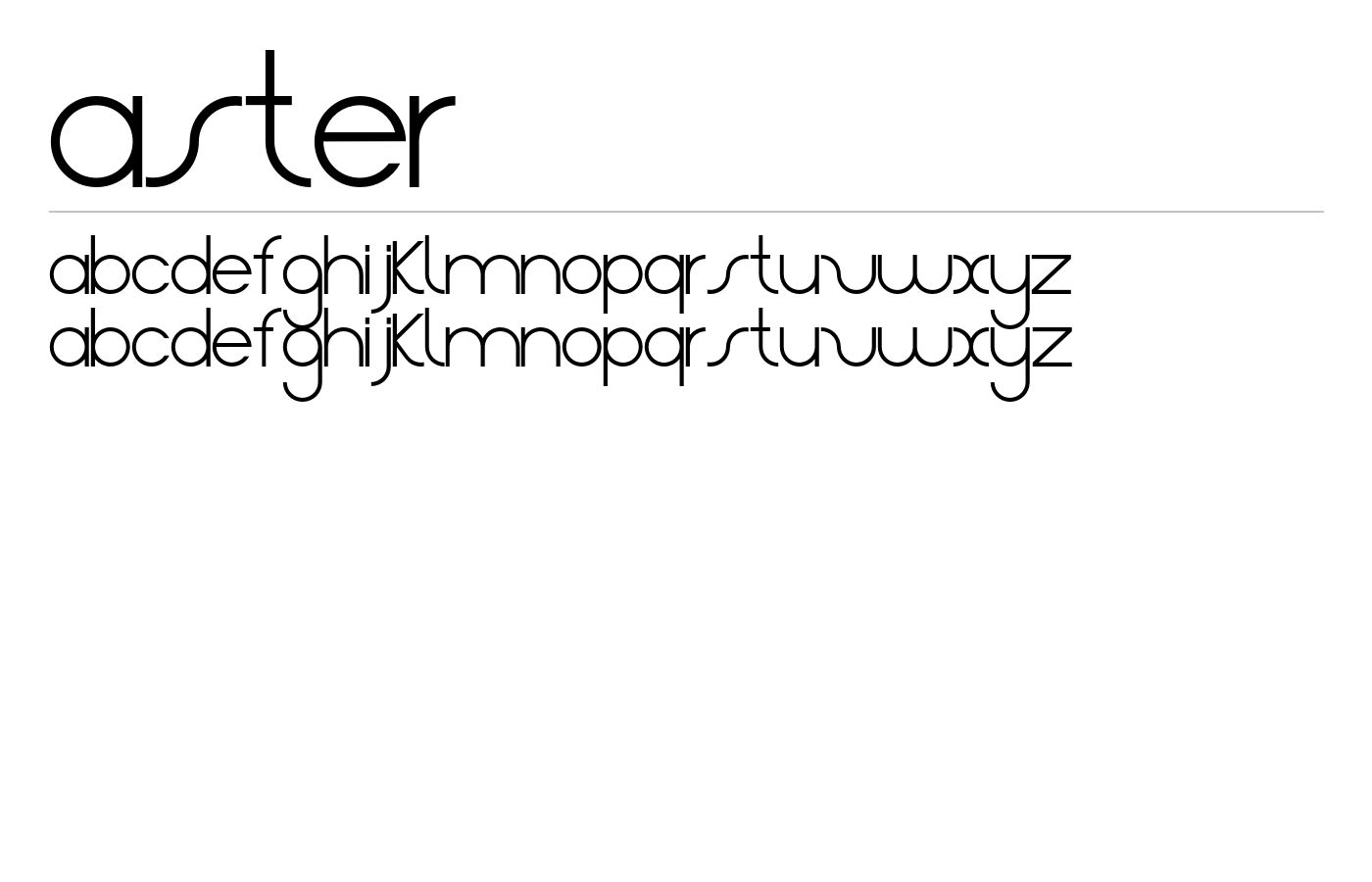
Aster is a sleek, modern sans serif font characterized by its thin, elegant strokes and geometric letterforms with a high x-height that enhance readability. Its playful yet refined shapes, including single-story 'a' and a distinctive loop in characters like 'g', offer a stylish, contemporary feel ideal for fashion, editorial, and creative branding. This font works beautifully in headlines and logos where a clean, artistic impression is desired.
Aster Font
About Aster Font
| Font family | Aster Font |
| Designer | Paulo R |